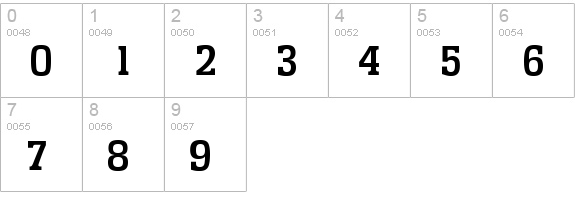
Enschede-DemiBold is a sub-bold, structured variant in the Enschede typeface family \xE2\x80\x94 well suited to sub-headlines and emphasised passages.
Enschede-DemiBold is a versatile and modern font that exudes confidence and sophistication. With its bold and strong appearance, this font is perfect for making a statement in your designs. Its clean lines and balanced letterforms make it easily readable in both print and digital formats. What sets Enschede-DemiBold apart is that it is available for free download at FontsMarket.com. This means you can enhance your projects with this high-quality font without any cost. Whether you're designing a poster, logo, or website, Enschede-DemiBold will elevate your work with its professional and impactful aesthetic. Don't miss out on this opportunity to add a touch of elegance to your designs with the free Enschede-DemiBold font.